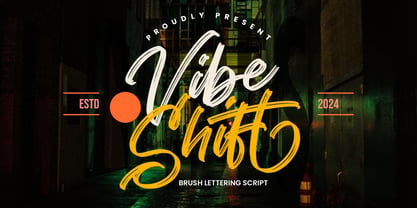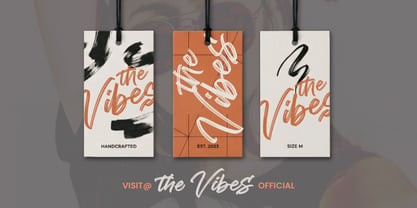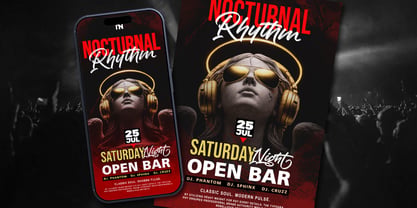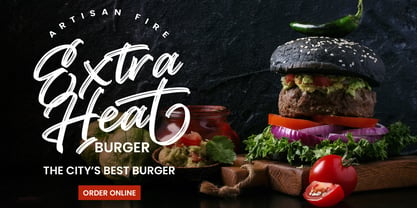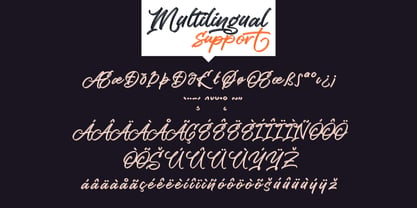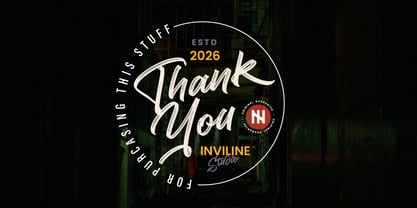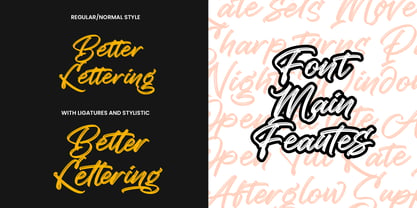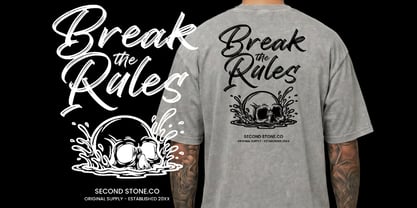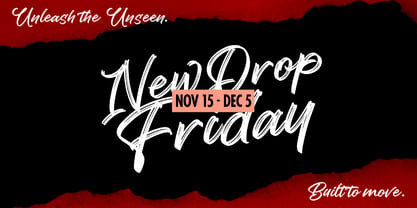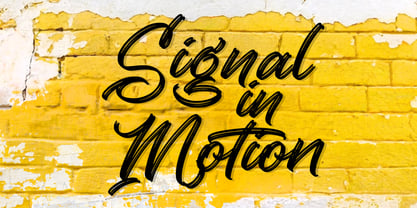
Vibe Shift
por Inviline
La familia tipográfica Vibe Shift fue diseñada por Virgiawan Listanto y publicada por Inviline. Vibe Shift contiene 1 estilos. Más información sobre esta familia
Vibe Shift marks a creative comeback where typography becomes as expressive as imagery itself. Designed by Inviline Studio, this bold brush lettering script bridges the gap between chaotic street art and refined graphic design, offering an authentic, rebellious voice for modern brands.
In an era saturated with template-driven minimalism, Vibe Shift is an instant deformalizer. Each letterform is built with highly detailed, textured brush strokes that communicate an immediate sense of urgency, motion, and raw personality. The typeface uses a heavy weight for key display text to ensure professional brand authority while maintaining its raw street aesthetic.
It features a comprehensive set of 250+ glyphs, smart alternates, and custom ligatures that ensure consecutive letters flow naturally without repeating.
Perfect for: Streetwear fashion catalogues, high-energy festival flyers, food and beverage branding (burger spots, craft beers), and bold editorial headings.